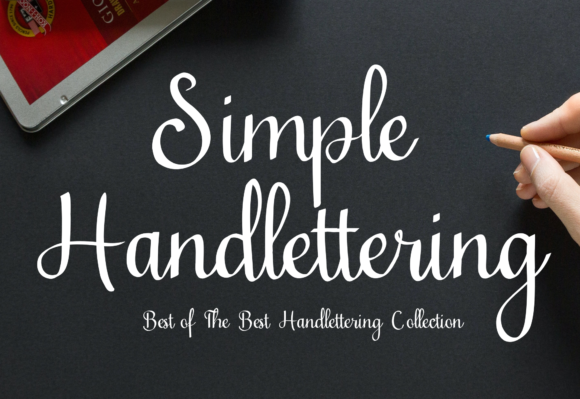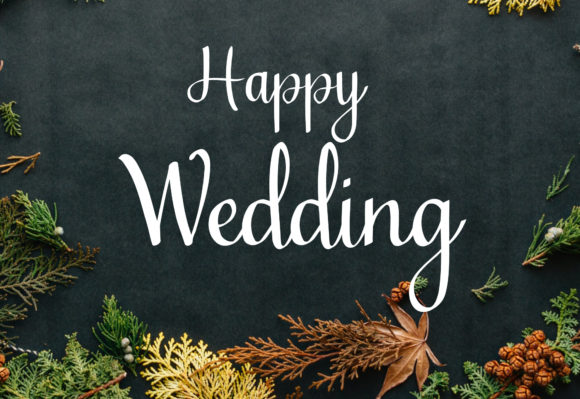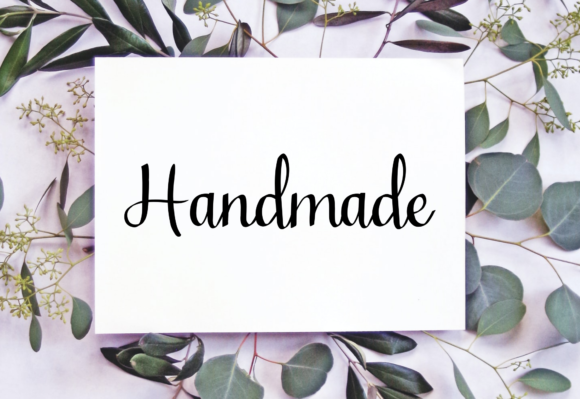
Simple Handlettering Font
About Simple Handlettering Font
Simple Handlettering is an elegant script font with a contemporary atmosphere and impeccable form. Not too thin and not too thick, balanced and varied, this font was designed to enhance the beauty of your projects.